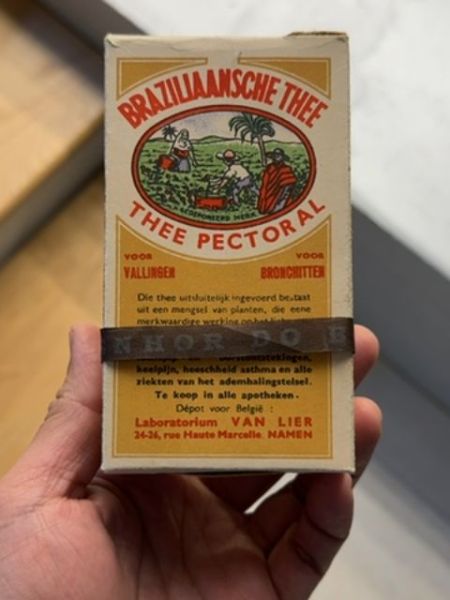
Braziliaansche Thee
This is a medicinal tea blend marketed for alleviating symptoms related to asthma and bronchitis. It is intended for improving respiratory health.
Belgium
The typography features a bold, serif font for the main product name, giving it a classic, authoritative feel. The secondary text uses a smaller serif typeface, maintaining readability while suggesting reliability and trust.
The packaging is vintage in style, with a cream-colored background and an oval illustration of tropical scenery. The primary text is in bold red, flanked by additional descriptive text and a darker-color band around the middle.
- Product intended for respiratory health.
- Marketed towards asthma and bronchitis relief.
- Packaged by Laboratorium Van Lier in Belgium.